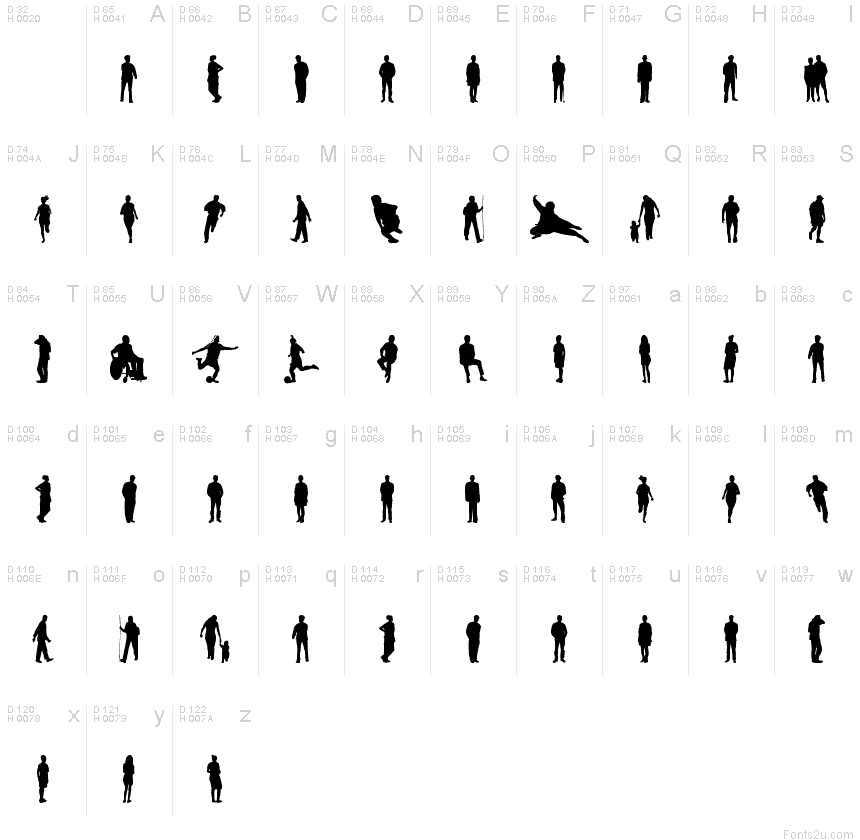
Ihminen
Ihminen font by Jenny Barck is a free human dingbats typeface that captures everyday silhouettes in bold, inky black. Each figure feels like a frozen moment on a city street-standing, walking, running-giving your layouts an instant human presence without relying on stock photos or illustration. The shapes are solid and clean, so they reproduce crisply at both small icon sizes and large poster scales.
Using Ihminen, you can quickly add people to infographics, wayfinding signs, editorial spreads, event posters, social media graphics, and presentation slides. The consistent proportions make it easy to build sequences or patterns that read at a glance. This free font pairs smoothly with a simple sans serif for text, letting the silhouettes carry the visual drama while the words stay clear and unobtrusive.